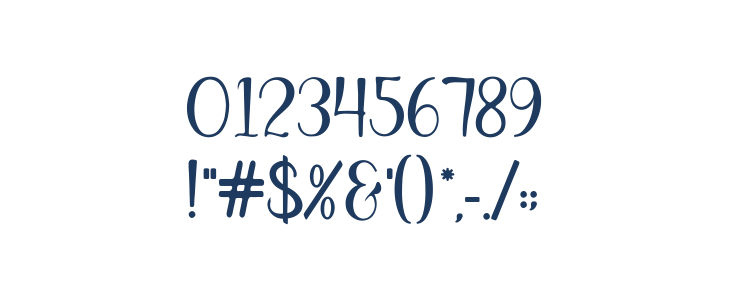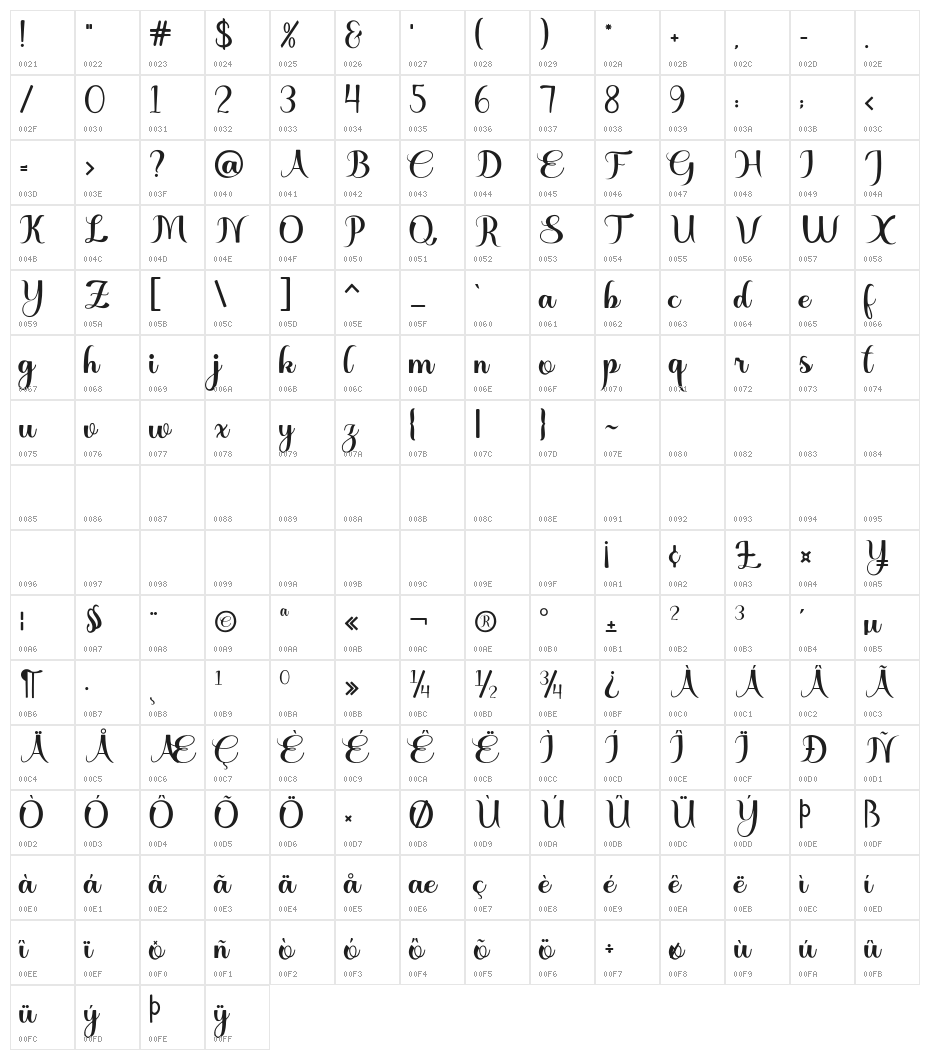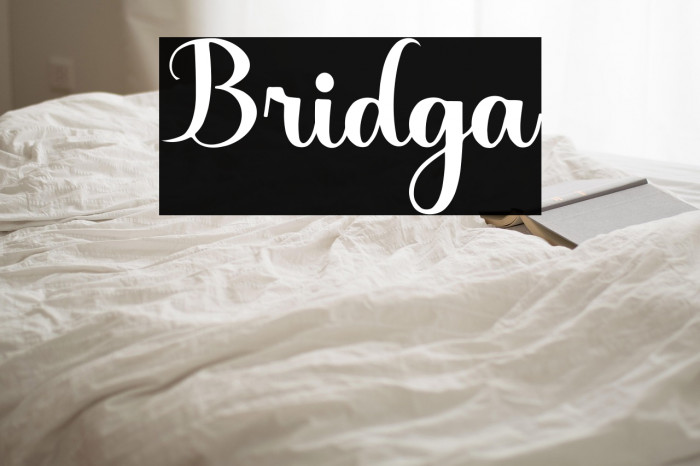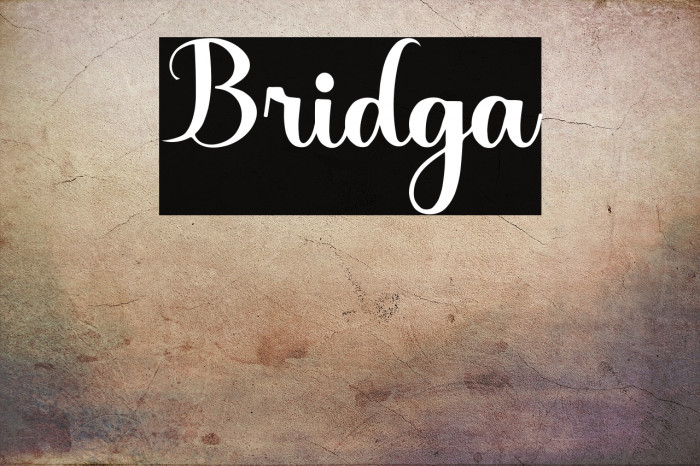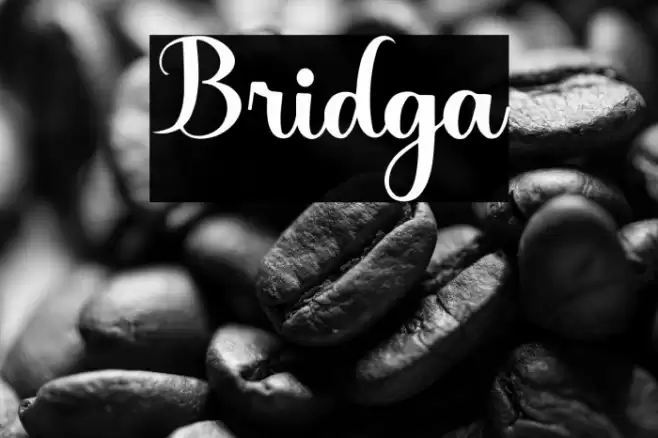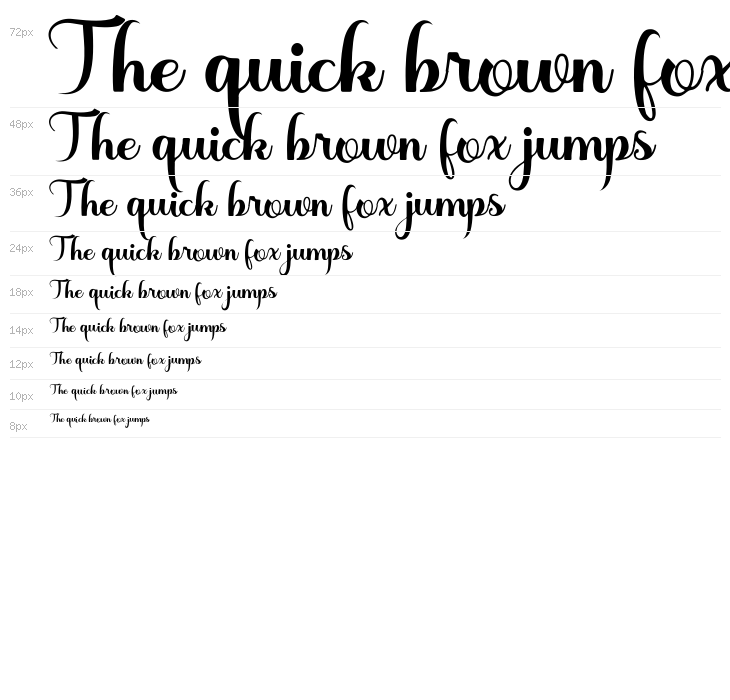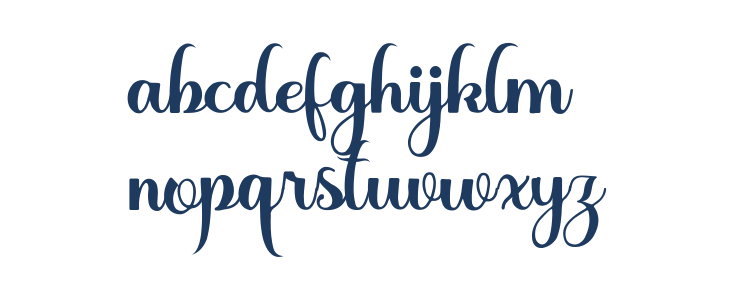
Bridga Font
Bridga Description
This font features a unique blend of elegance and playfulness, characterized by its flowing script style. The uppercase letters exhibit a graceful, cursive form with subtle flourishes, while the lowercase letters maintain a bold and expressive appearance. The numerals are consistent with the overall style, offering a harmonious balance between readability and artistic flair. Special characters are creatively designed, adding to the font's versatility. The font's overall appearance is both sophisticated and approachable, making it suitable for a variety of creative applications.
| Proposed Projects | Ideal for wedding invitations, greeting cards, branding projects, and decorative signage. |